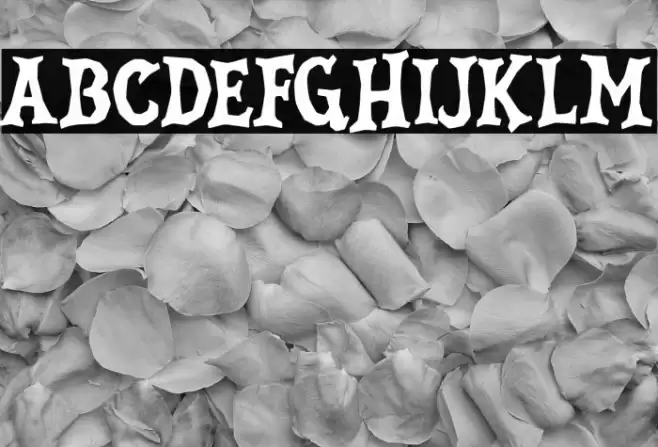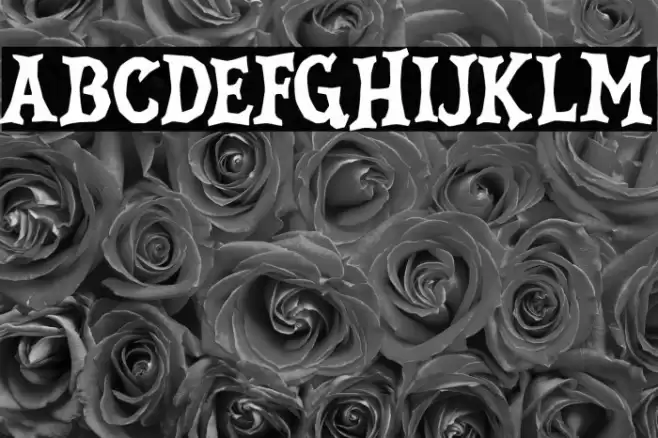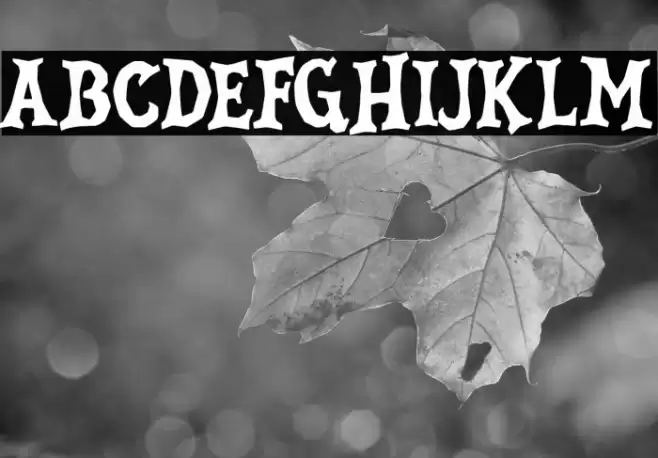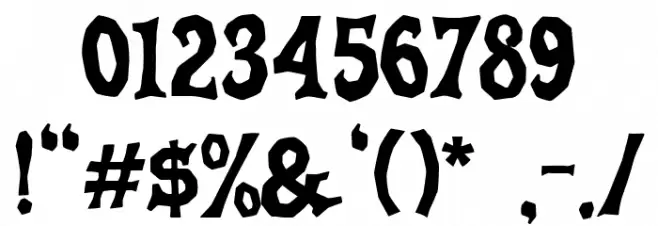
FrightMaidenDemo Font
FrightMaidenDemo Description
This font features a bold and dramatic style with a distinctively jagged and uneven appearance, reminiscent of horror or gothic themes. The characters are heavily stylized, with sharp edges and irregular strokes that create a sense of movement and energy. The uppercase and lowercase letters maintain a consistent design, providing a cohesive look across the alphabet. Numbers and special characters are equally bold and expressive, making them stand out in any design. The font's unique style is perfect for creating an eerie or mysterious atmosphere.
A bold, jagged font with a gothic, horror-inspired style from Uncategorized fonts.
- Proposed Projects: Ideal for Halloween-themed designs, horror movie posters, spooky invitations, and any project requiring a dramatic and eerie aesthetic.
- Overall Style: Gothic, Horror
- Use Case: Headlines, Posters, Themed Invitations